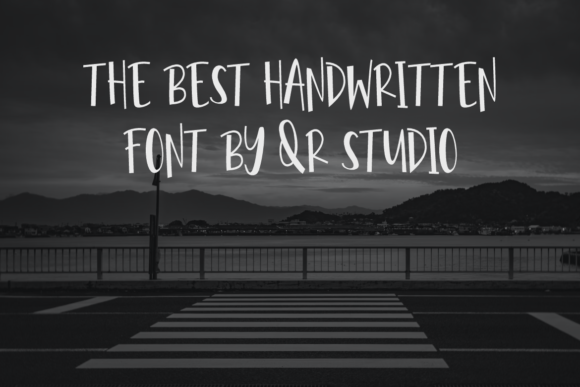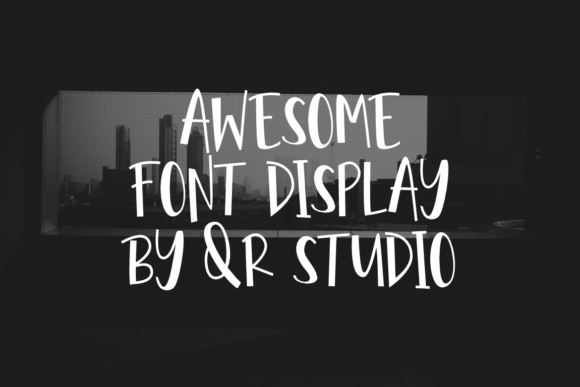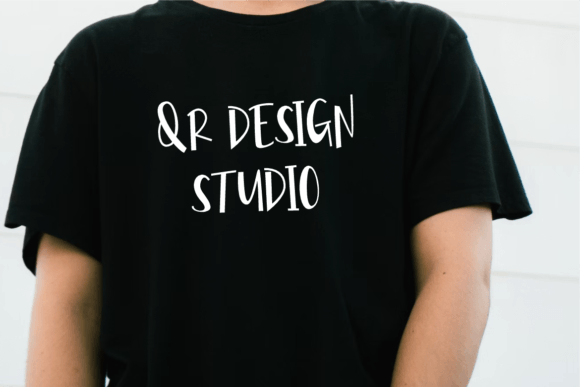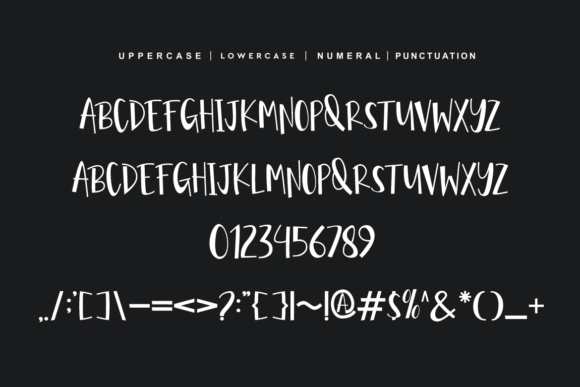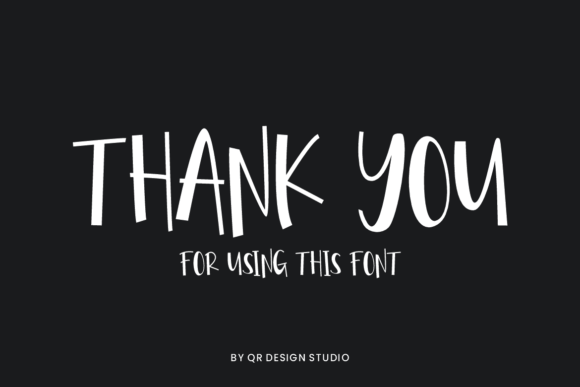
Unleash Your Creativity with Awesome Marker Font
You know that moment when a font just clicks and you can’t stop thinking about the project you’re about to create? It’s like a spark of inspiration has ignited, and you can’t wait to see your ideas come to life. For me, that moment happened when I discovered the Awesome Marker Font.
With its lovely and timeless handwritten feel, Awesome Marker Font is the perfect choice for designers looking to create eye-catching logos, branding, and quotes. Every letter has a unique and beautiful touch, which will make your design come alive. Whether you’re a seasoned pro or just starting out, Awesome Marker Font is a valuable tool to have in your arsenal.
Awesome Marker Font Key Features
- Unique Characteristics: The font features a distinctive marker-style design, with bold lines and a playful aesthetic that adds a touch of whimsy to any project.
Awesome Marker Font Review
Overall, I was pretty excited to dive into Awesome Marker Font, but my experience was a mixed bag. Here’s what I think works well: ✨ The font is super versatile and can be used for a variety of projects, from logos to signage. The bold lines and fun, playful vibe make it perfect for adding a bit of whimsy to your designs. ✨ I also appreciate the high level of customizability, with a range of size and color options available. ✨ And, the font is extremely easy to use, even for those without extensive design experience.
However, there are a few limitations to consider: ⚠️ One of the main issues I have with Awesome Marker Font is that it can be a bit too playful for certain projects. If you’re working on a more professional or corporate design, it might not be the best fit. ⚠️ Additionally, the font can be a bit pixelated when scaled up, which can affect its overall appearance. ⚠️ Finally, I wish there were more font variations available, as the current options can get a bit repetitive.
- Works well for playful, creative projects
- Easy to use
- Can be a bit too playful for professional projects
- May become pixelated when scaled up
- Limited font variations
Overall, I would give Awesome Marker Font 3.5 out of 5 stars. It’s a solid choice for playful projects, but might not be the best fit for more serious designs.
Awesome Marker Font is perfect for creating playful and eye-catching designs. Use it for:
1. Social media graphics and posts.
2. Infographics and educational materials.
3. Children’s book illustrations and designs.
4. Party invitations and decorations.